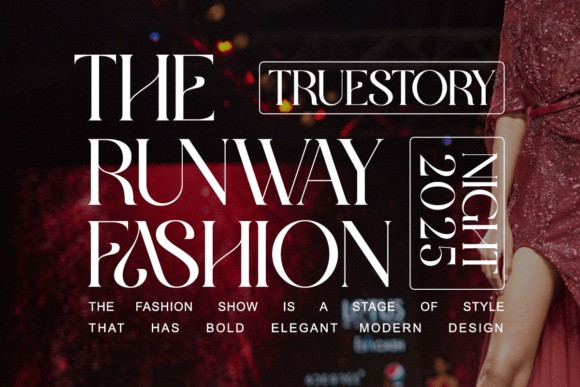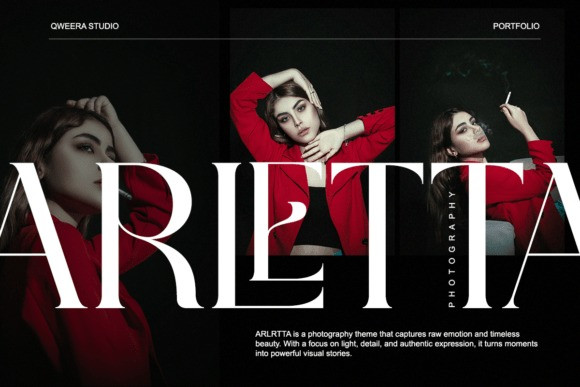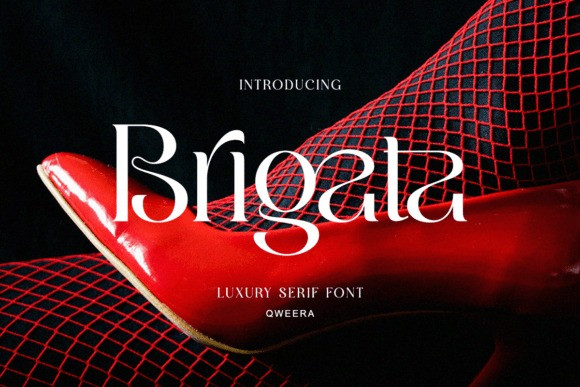
Brigata Font
Brigata Font is a study in stylish contrast, featuring sharp, razor-thin serifs on a core of bold, curvaceous letterforms that exude glamour and sophistication. Its extreme weight variation and dramatic styling give it an undeniably sexy, avant-garde feel, making it perfect for editorial spreads, high-end packaging, and luxury lifestyle branding.
The beautiful, sweeping curves and unique letter architecture make the Brigata typeface a standout in any crowded design space. Use this striking Luxury Serif Font to craft a memorable logotype or a captivating headline that speaks to opulence, drama, and modern, unapologetic style.
The Brigata font is also PUA-encoded, ensuring effortless access to all glyphs, swashes, and alternate characters to help you customize your creations with ease.